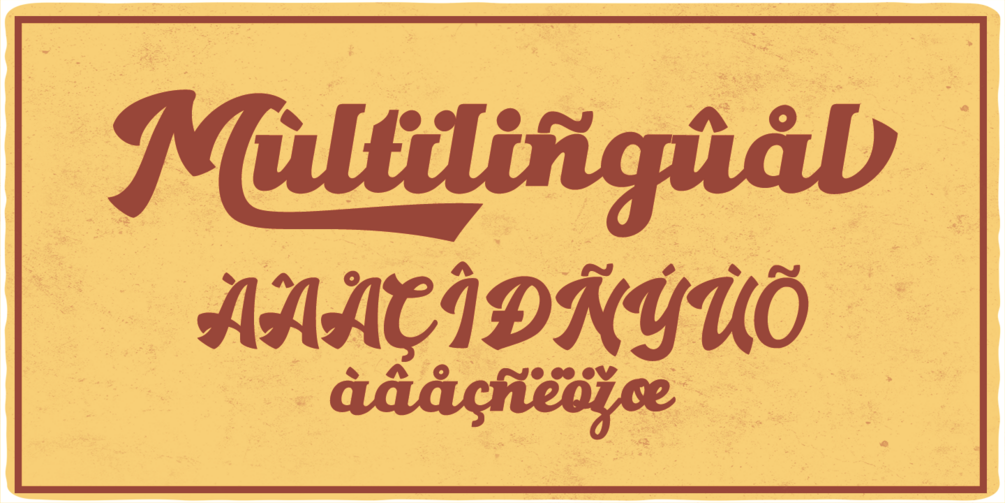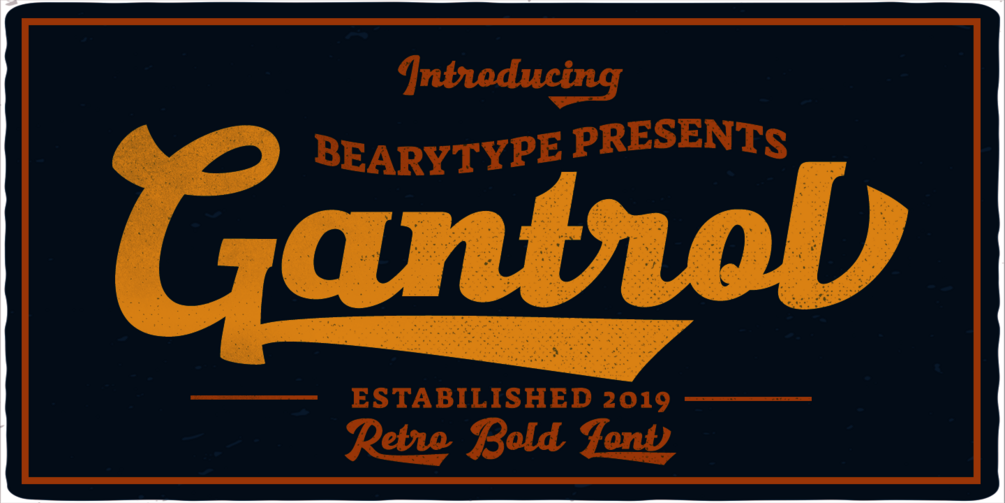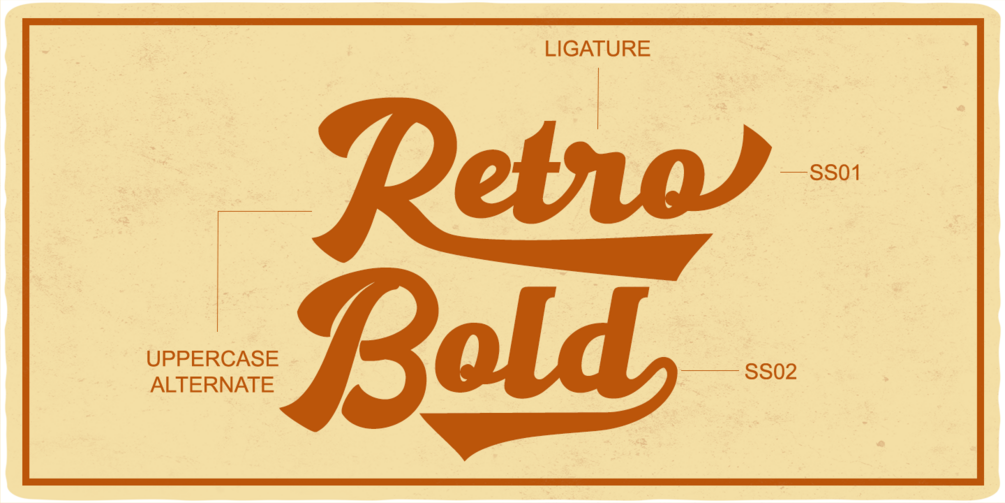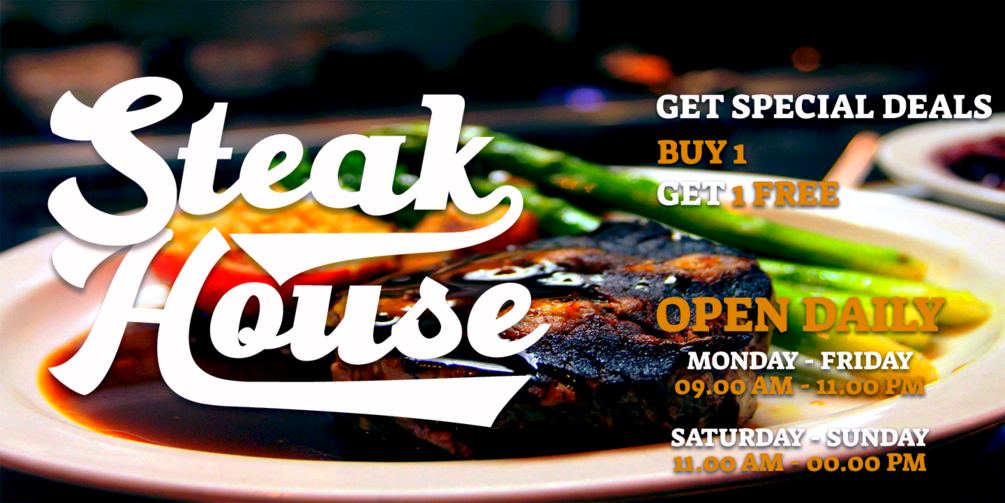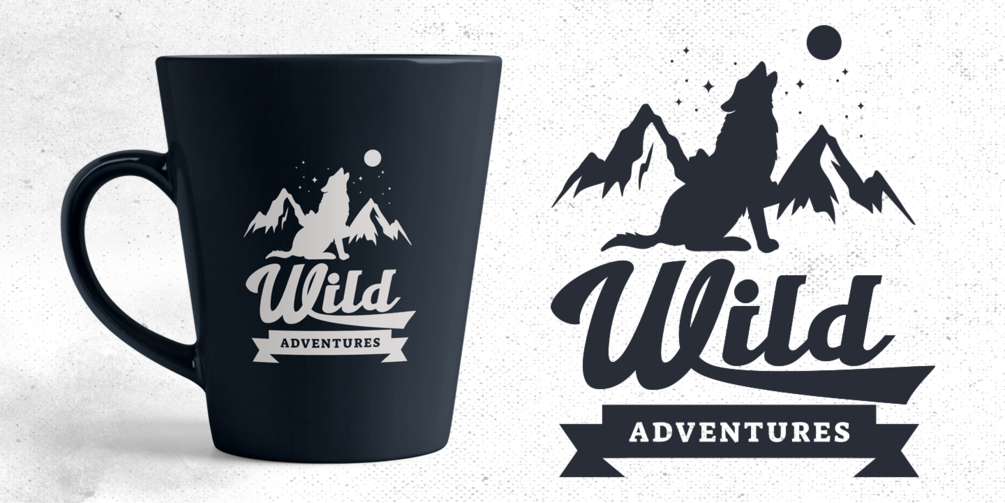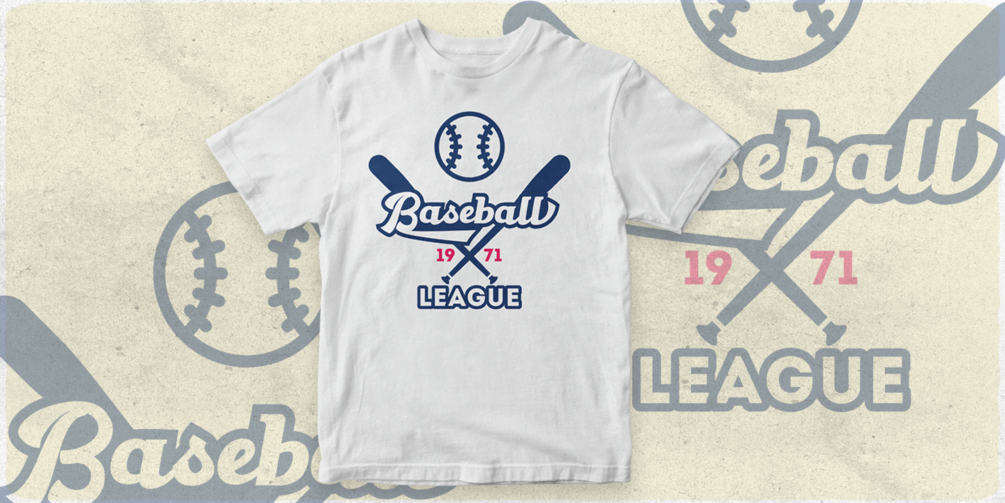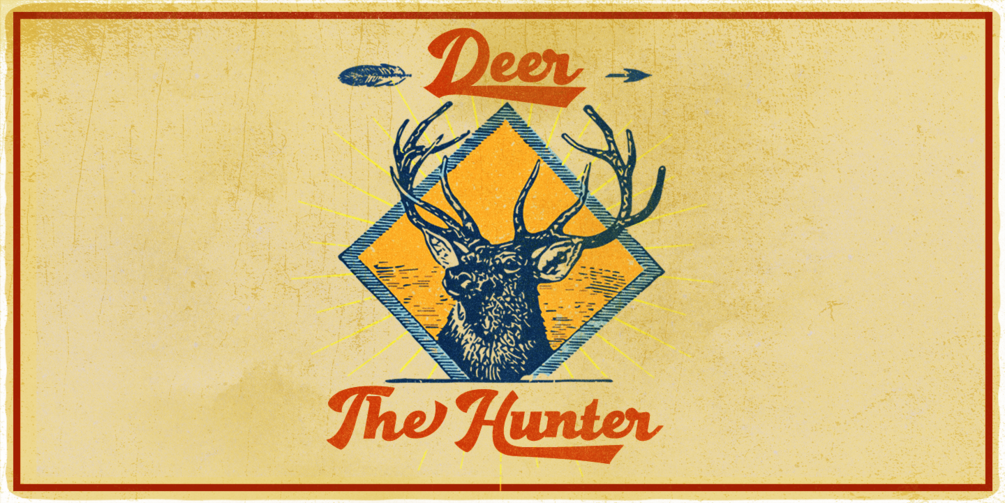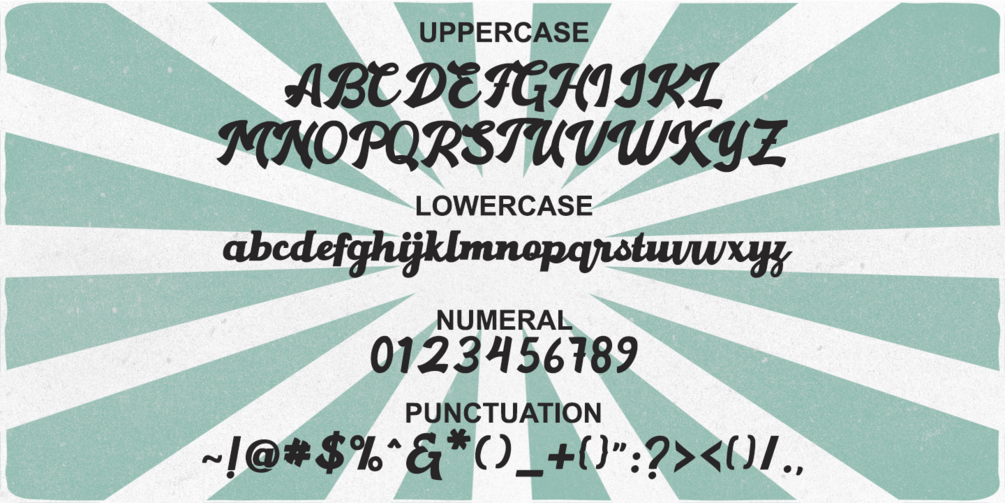
Gantry
Introducing, Gantry. Amazing hand lettering look bold script typeface with retro feel, attractive swashes and alternates! Every single letters have been carefully crafted to make your text looks beautiful. This font is suitable for Headline, logo font, typography design, t-shirt design, invitation, branding, packaging, advertising, classic design, poster design etc. I hope this can make inspire you from your work. Font is PUA encoded so you can access extras from character map in most design software.